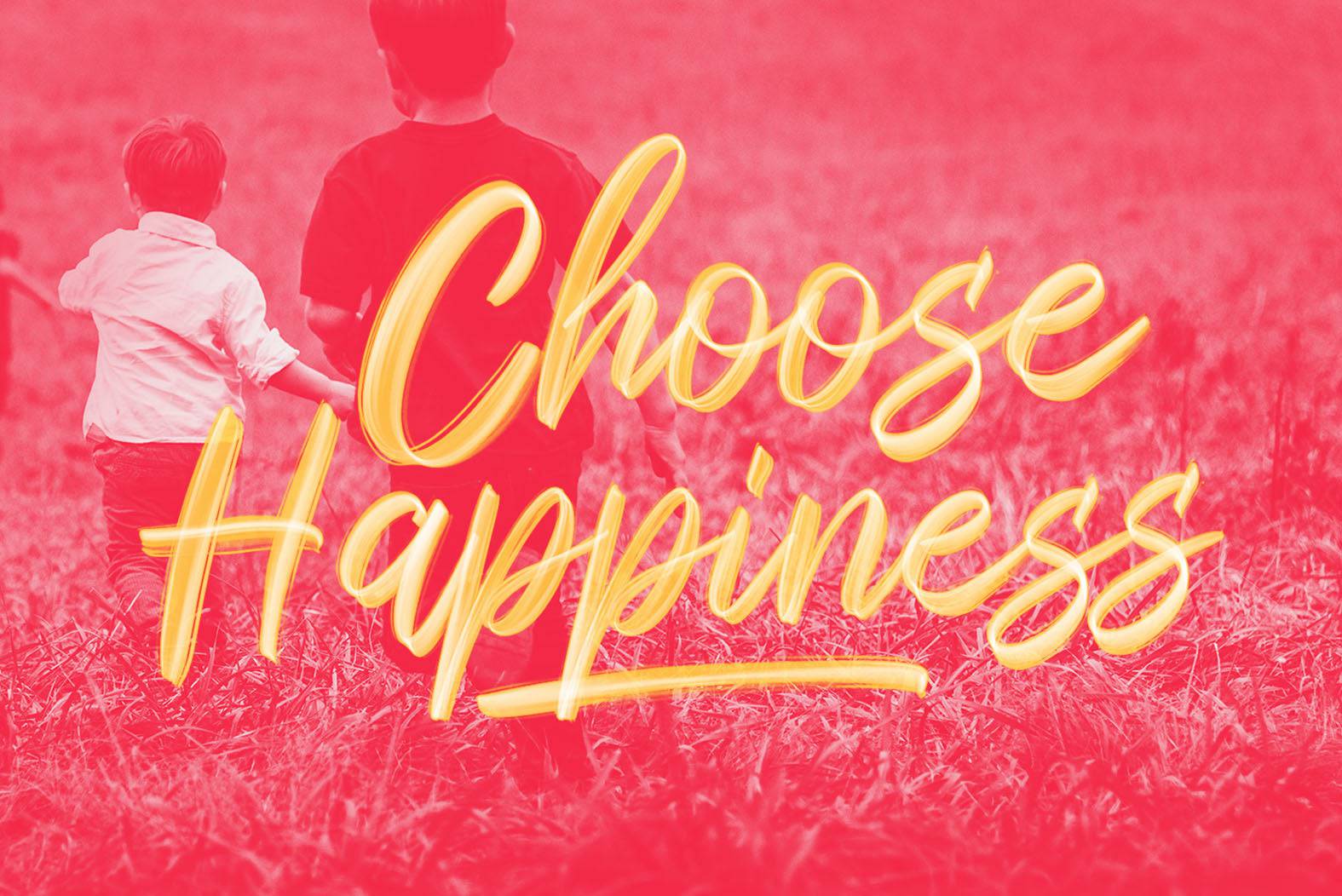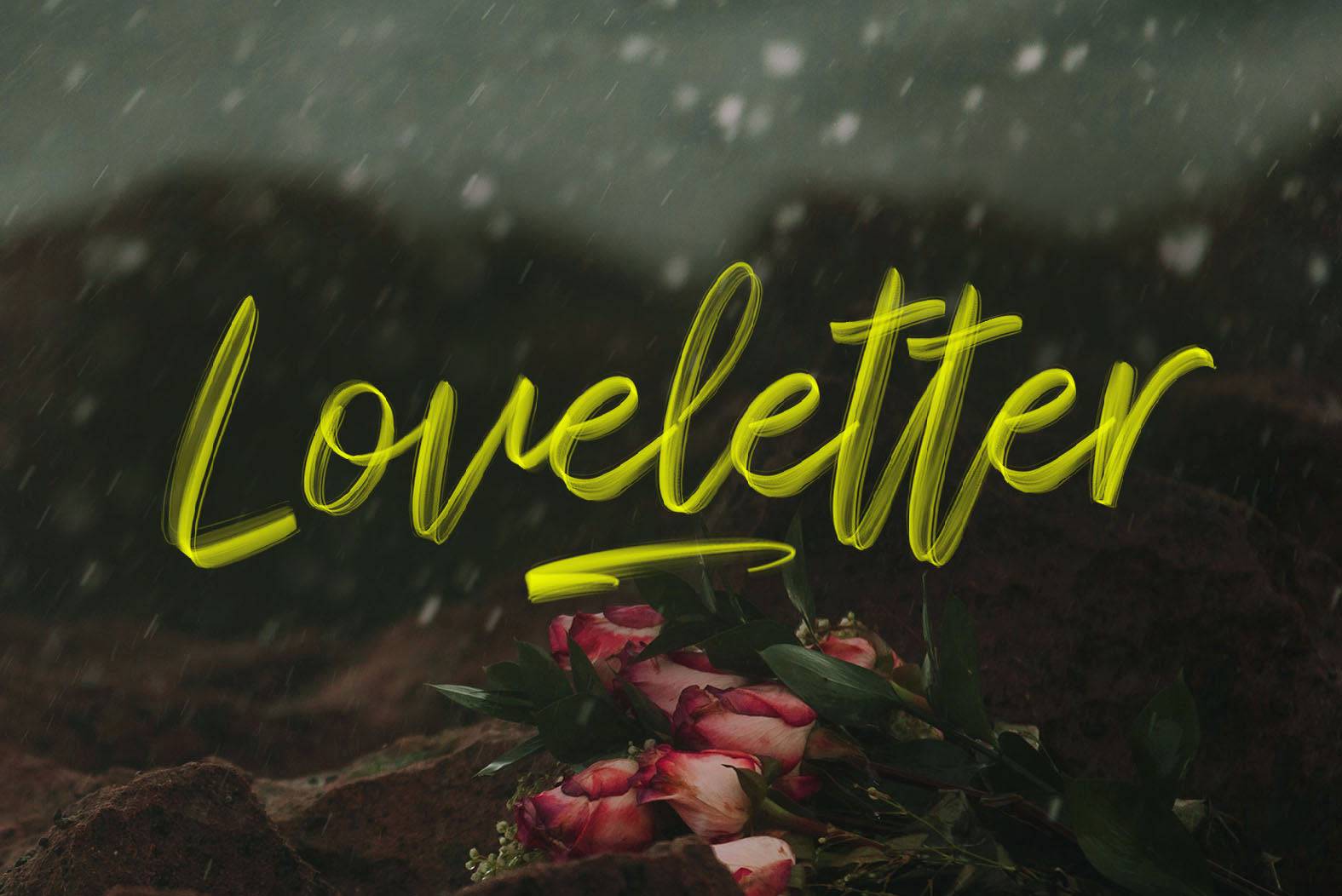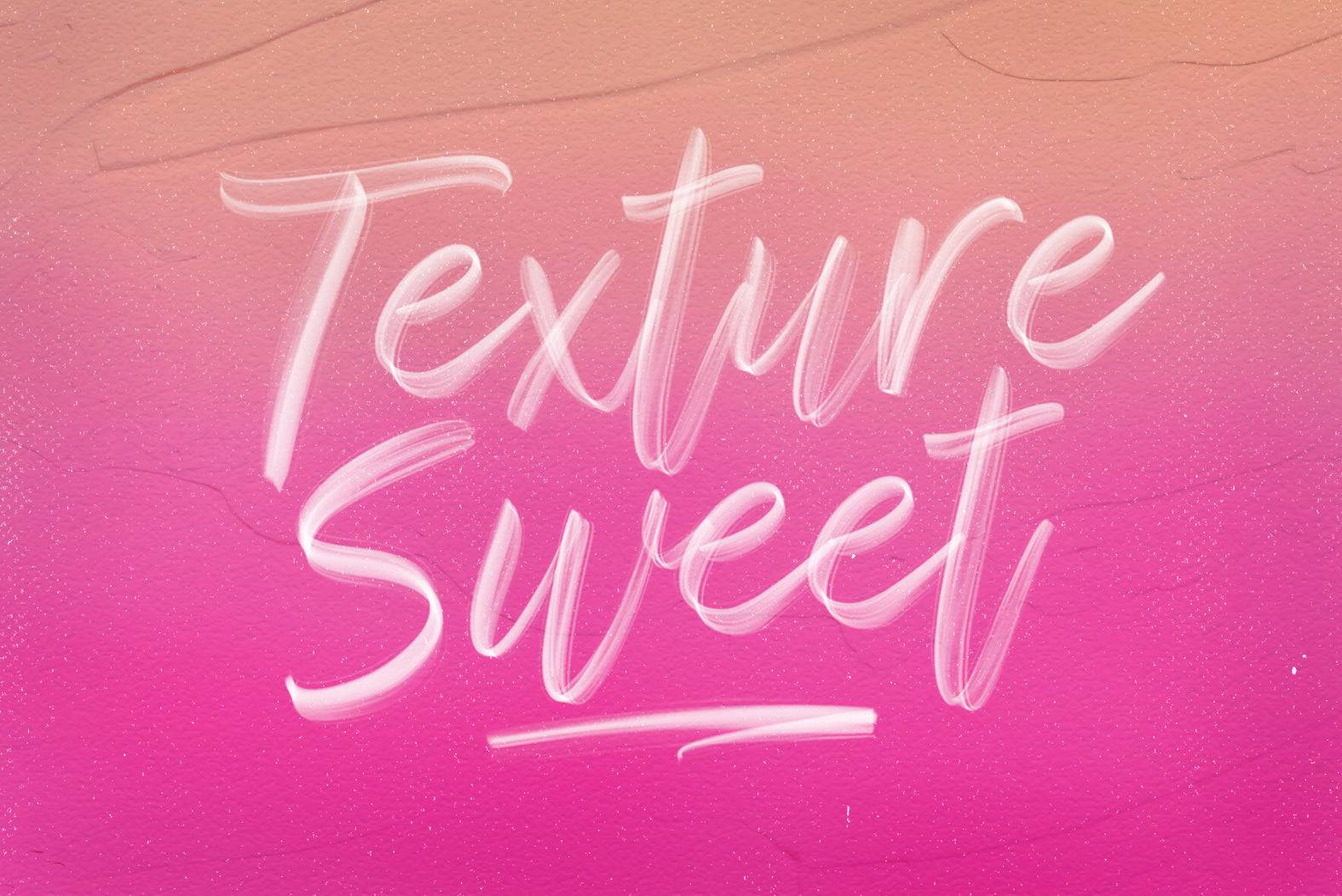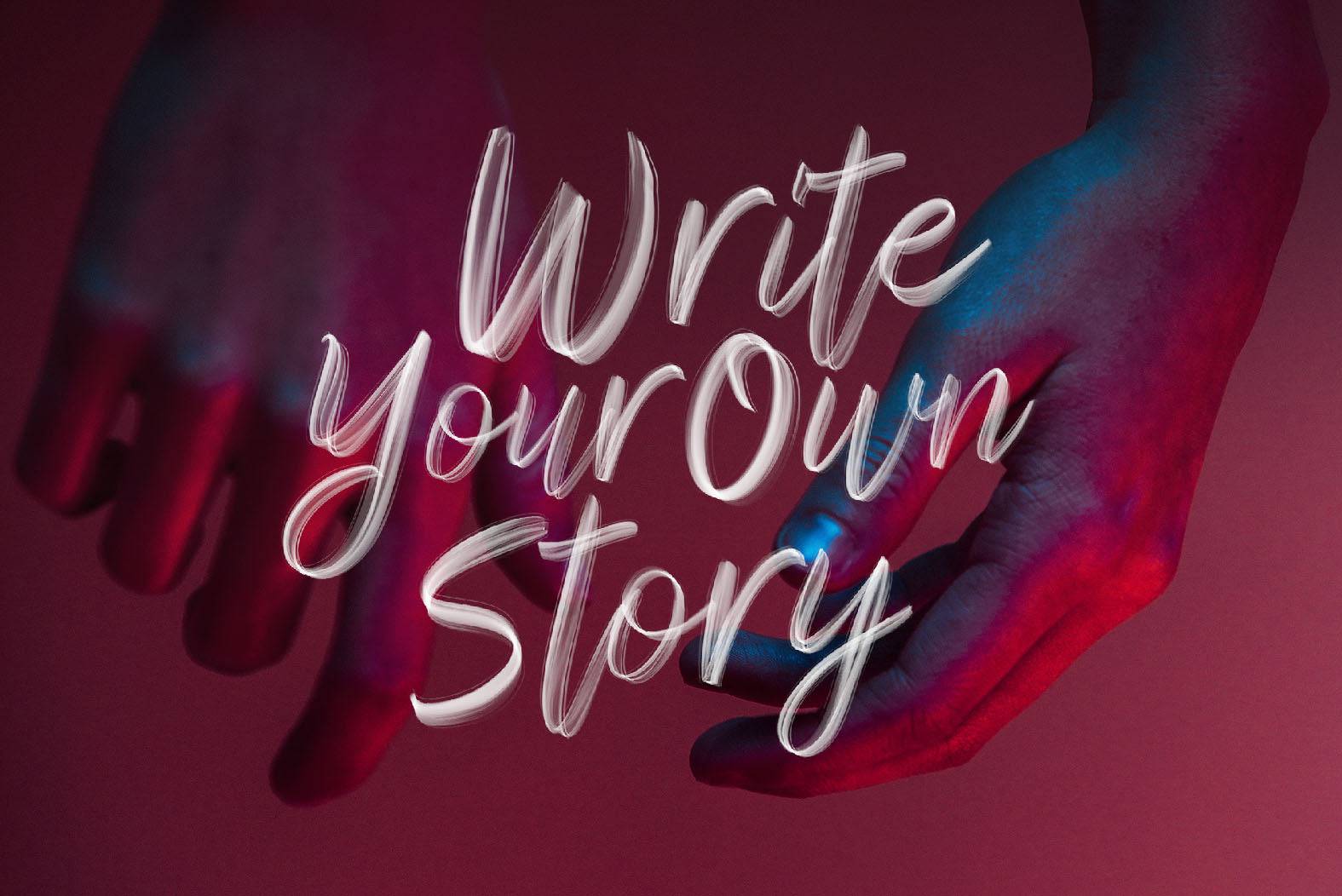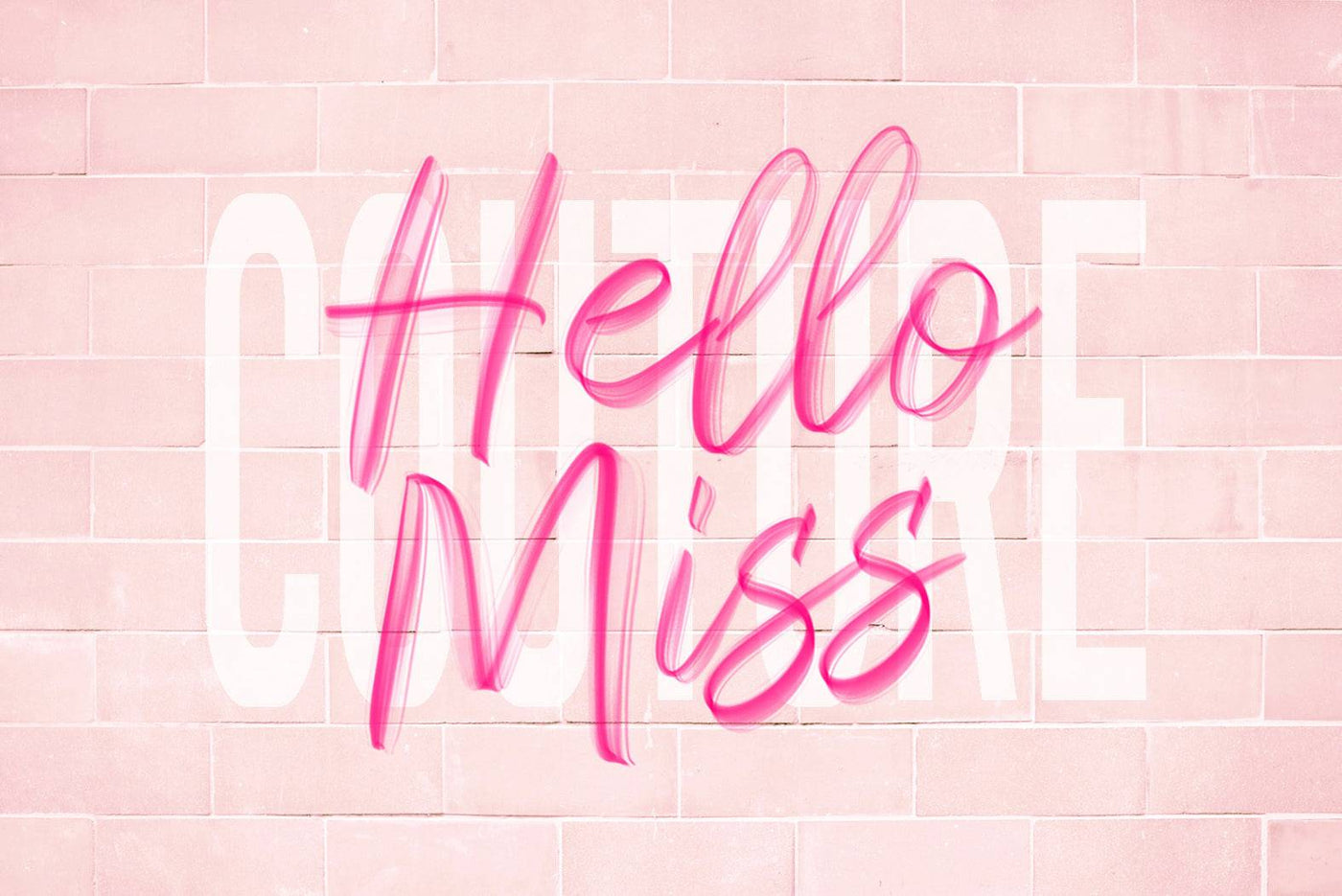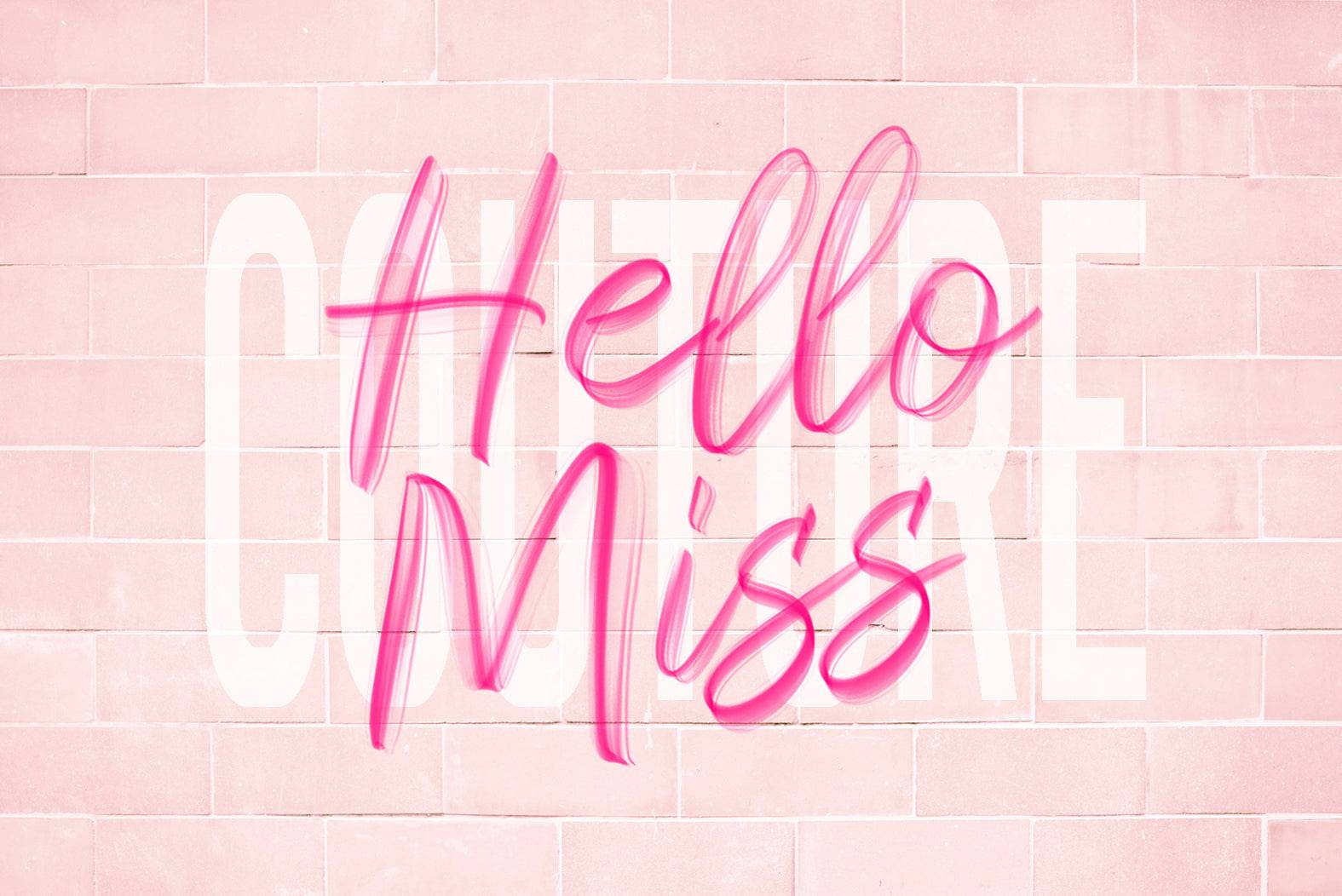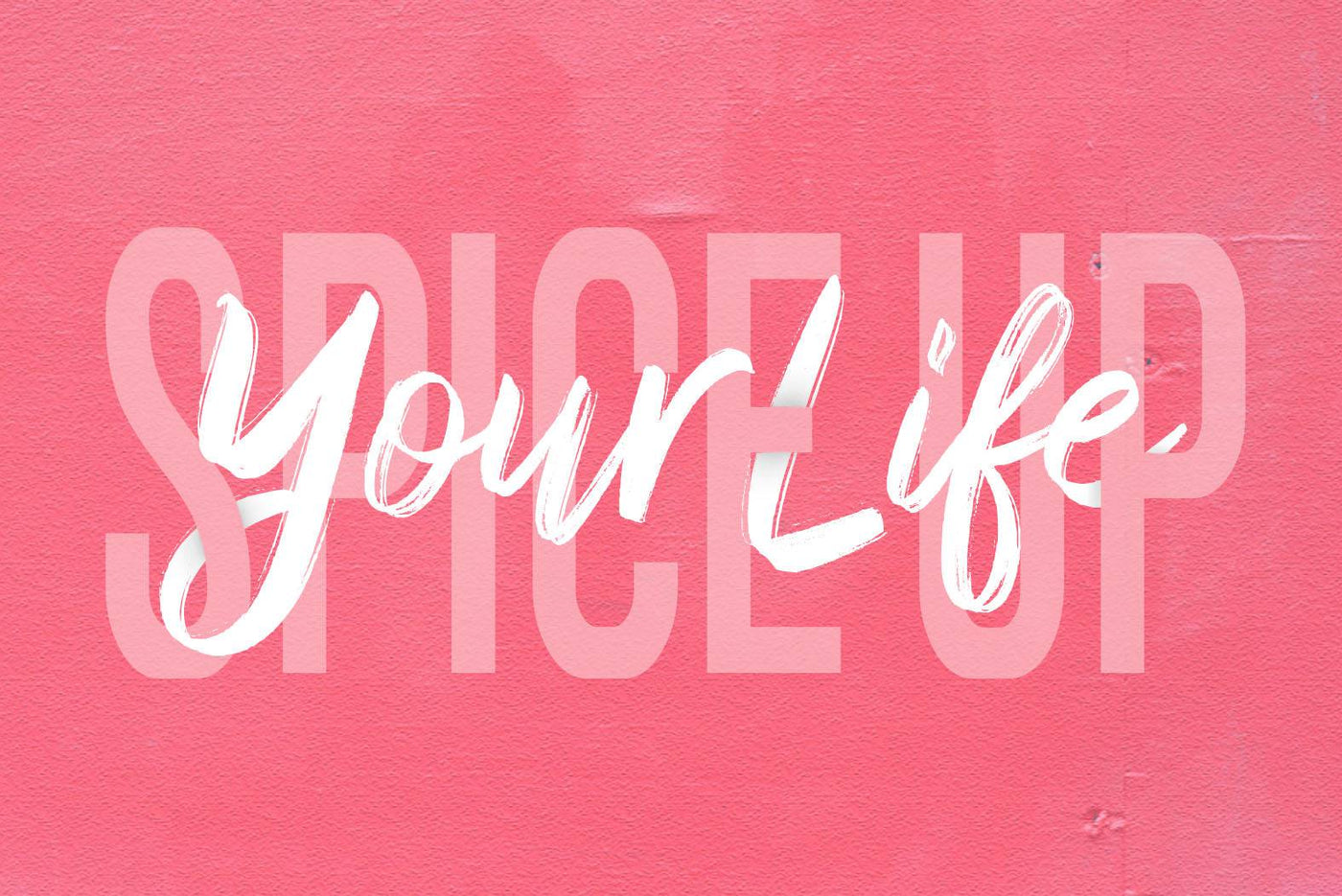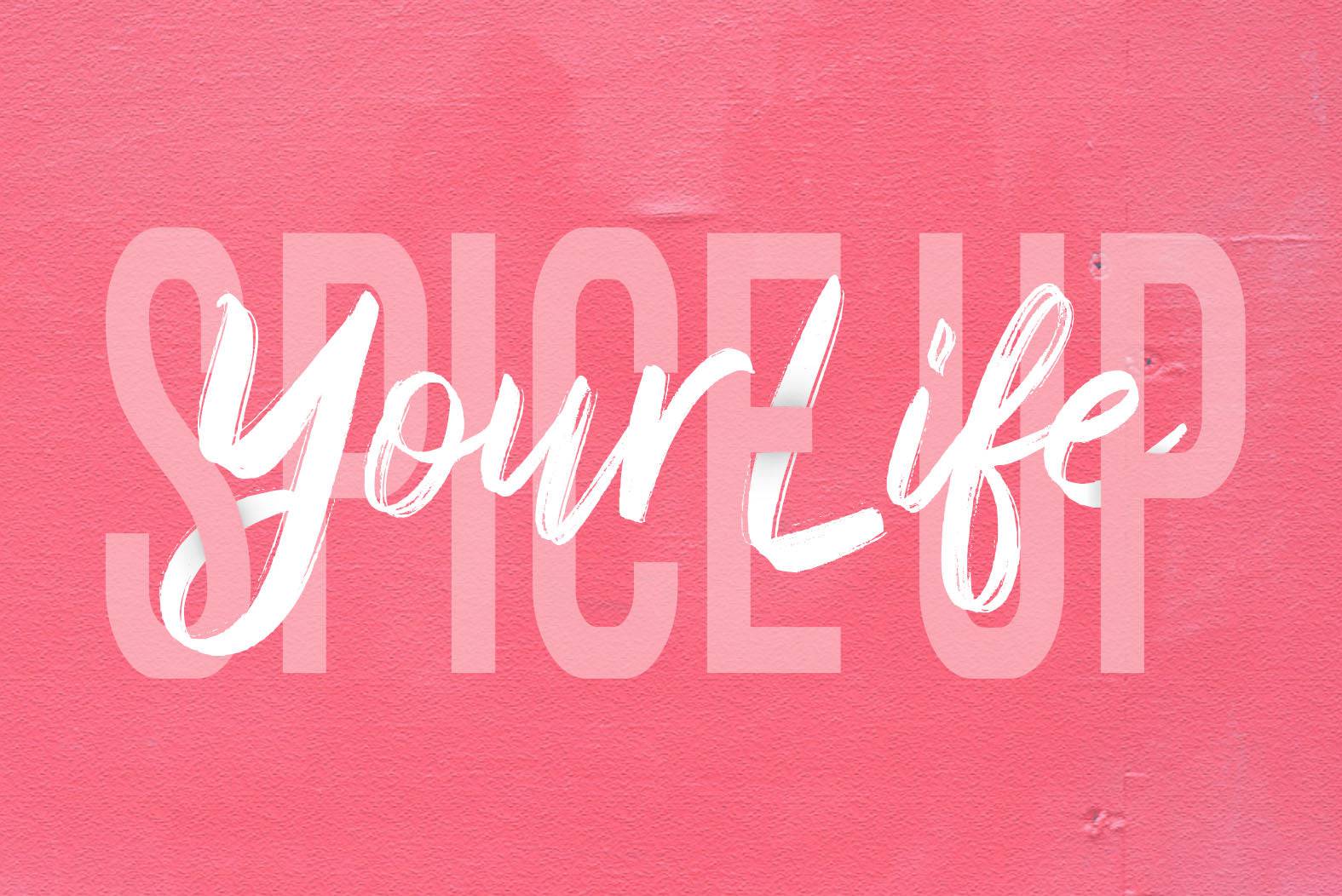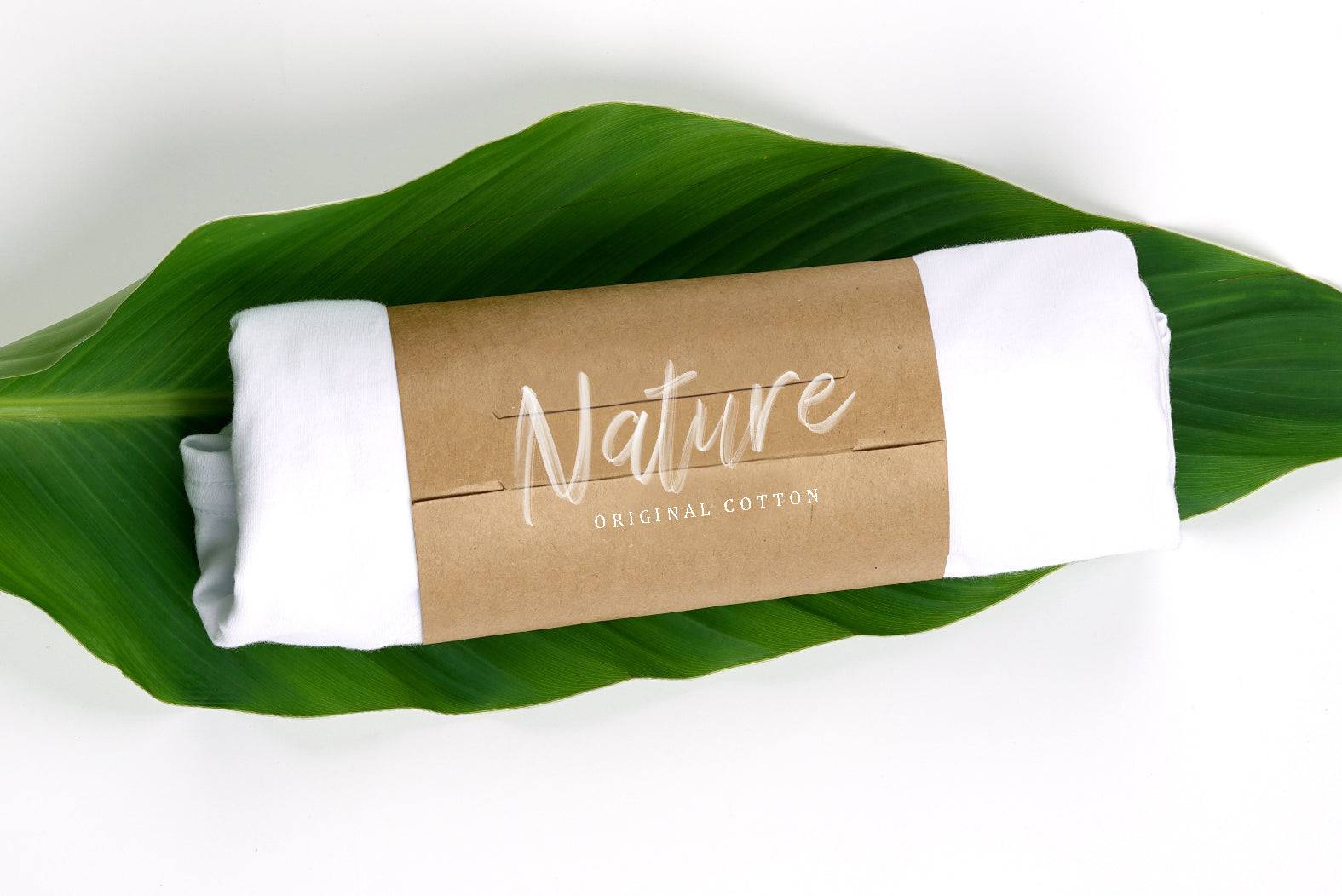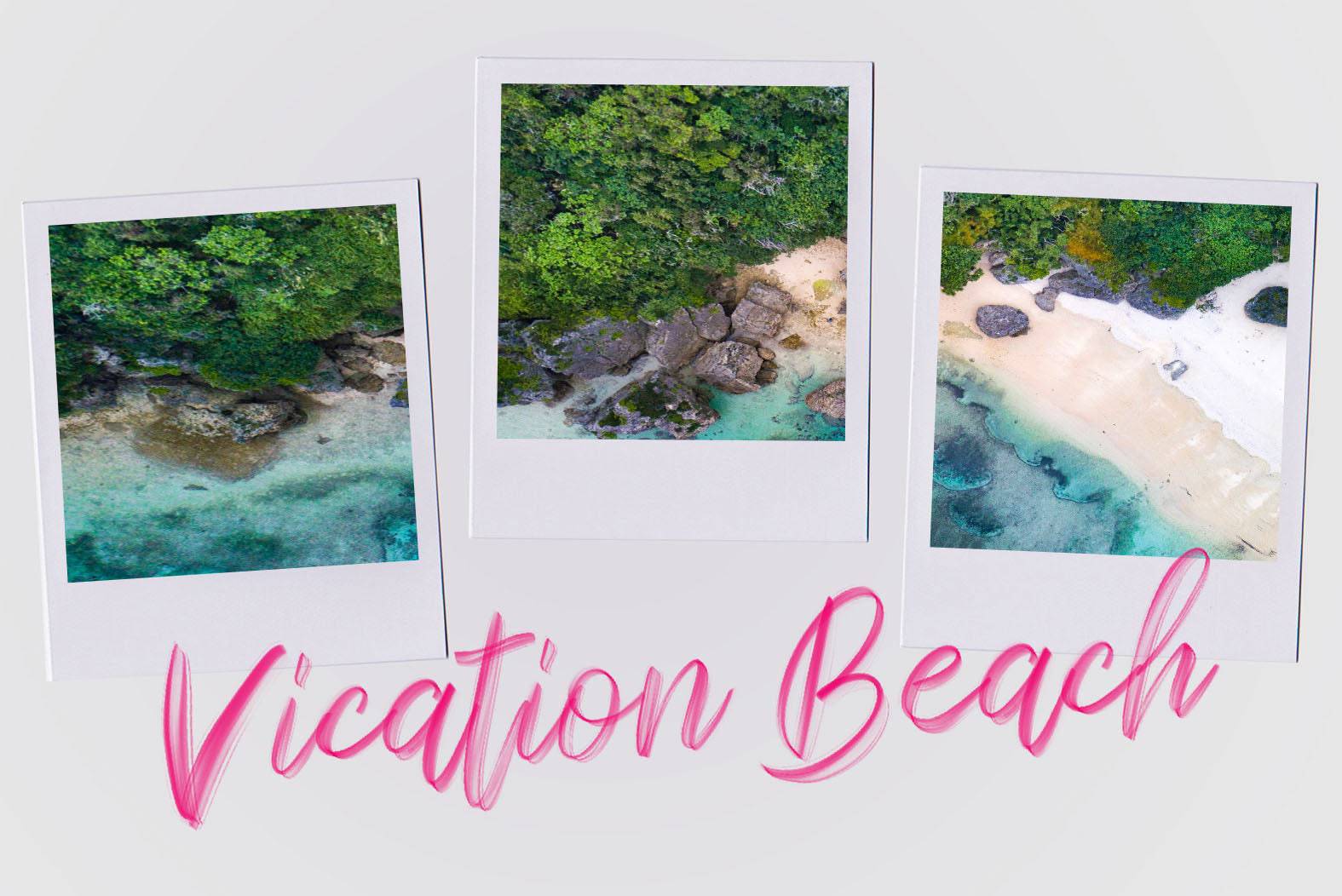
The Sparose SVG Font is created with a soft transparent line of texture scratches allowing you to give your designs an elegant look.
This font is perfect for designing invitations, signboards, book titles, stationery designs, quotes, branding, logos, greeting cards, packaging designs, posters, and more!
- Comes with ligatures and has 5 beautiful swatches
- Multi-lingual, number, punctuation support